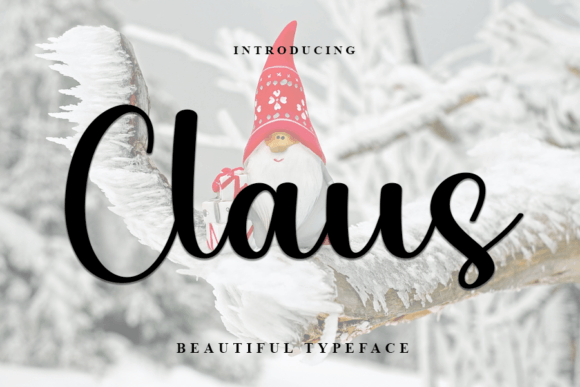
Step into the realm of unparalleled creativity and exquisite charm with Claus Font—a captivating handwritten treasure that blends timeless elegance with a touch of modern flair. This enchanting script flourishes with each stroke, painting a visual symphony that captivates the heart and ignites the imagination.
Dive into a world of infinite possibilities where Claus Font elevates your designs, transforming ordinary words into breathtaking works of art. Its delicate curves and enchanting swashes add a touch of sophistication to any project, whether you're writing heartfelt letters, designing enchanting invitations, or crafting enticing food product labels.
With Claus Font as your artistic companion, you unlock a gateway to limitless expression. Envision your words dancing gracefully across the page, each letter a testament to your creativity. Let your imagination soar as you craft movie scripts that come alive with each twist and turn of the plot, or create stunning titles that capture the essence of your stories.
The versatility of Claus Font knows no bounds, effortlessly adapting to a myriad of design styles and themes. Unleash your inner artist and explore the endless possibilities, from whimsical invitations that spark joy to elegant branding that exudes professionalism.
Indulge in the beauty of Claus Font, a font that will leave an enduring impression on your audience, inspiring awe and admiration. It's the perfect choice for those who seek to stand out, to make a statement, and to create designs that truly captivate the senses.
Claus Font—a font of dreams, a font of inspiration, a font that will transform your designs into masterpieces. Embrace its allure and watch your creativity flourish.